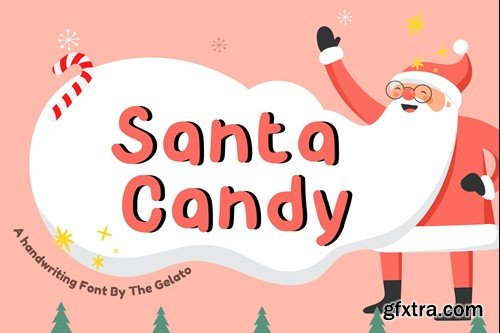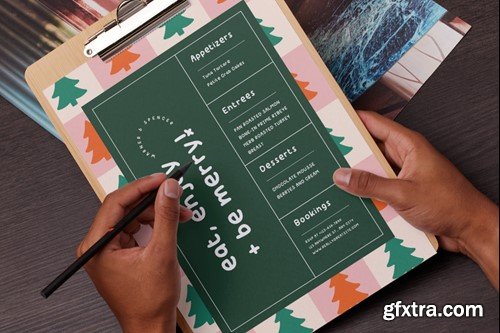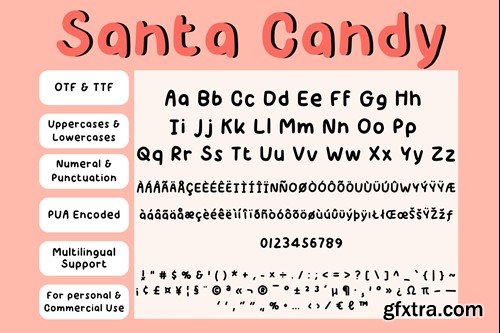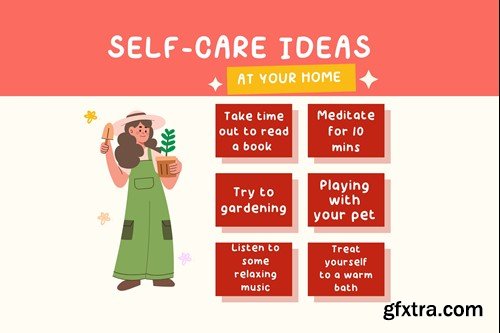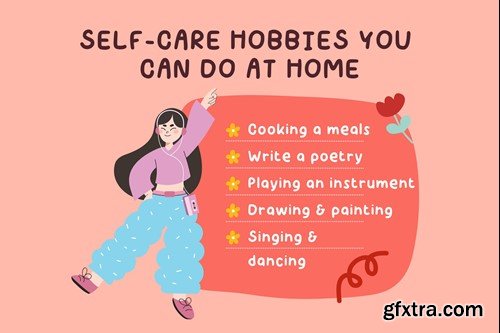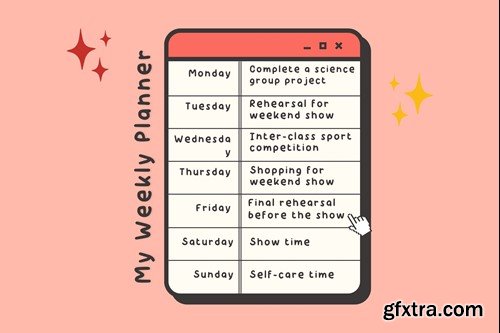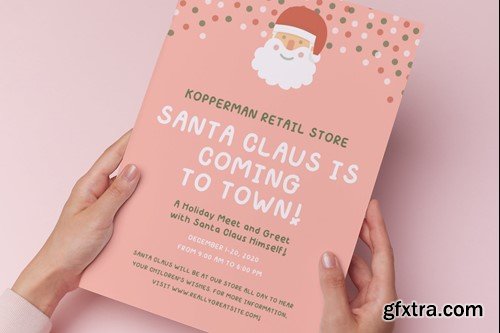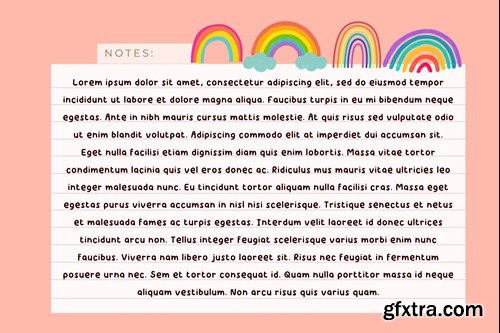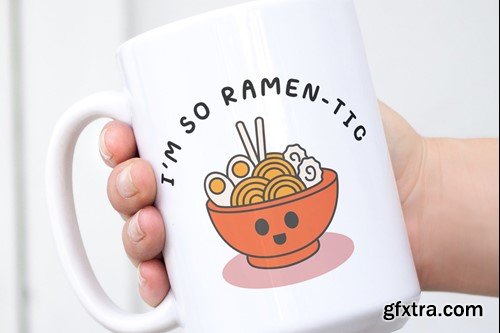
Rainbow Candy font is a very neat handwritten font that can be used as a Bold Handwritten Font, Christmas Font, Santa Christmas Greeting Font, Sweet Candy Font, Scrapbook Font, Bubble Craft Font, Digital Note Font, Kid Handwriting Font, Marker Font, Label Font, School name tag font It is perfectly suitable for numerous use, such as quotations, banners, logos, product packaging, titles, headers, menu lists, etc. Also, this font can work well on iPad planners, digital planners, GoodNotes templates, as well as other digital notes and journals LANGUAGE: ✅ Multilingual Support _________________________________ INCLUDED FILES: ✔️OTF File ✔️TTF File _________________________________ COMPATIBLE PROGRAMS (NOT LIMITED TO): GoodNotes, Notability, Keynote, Pages, Numbers, Procreate, Photoshop, Illustrator, Cricut, Silhouette, InDesign, Microsoft Word, and more! ++ _________________________________